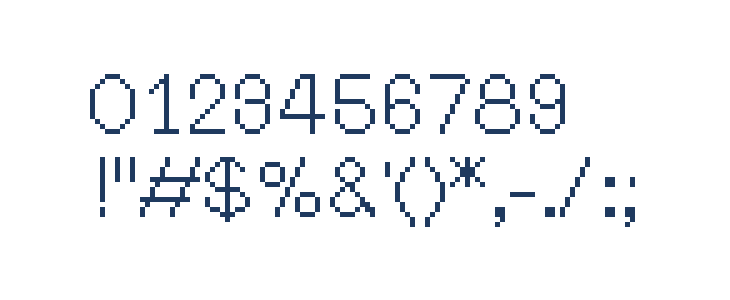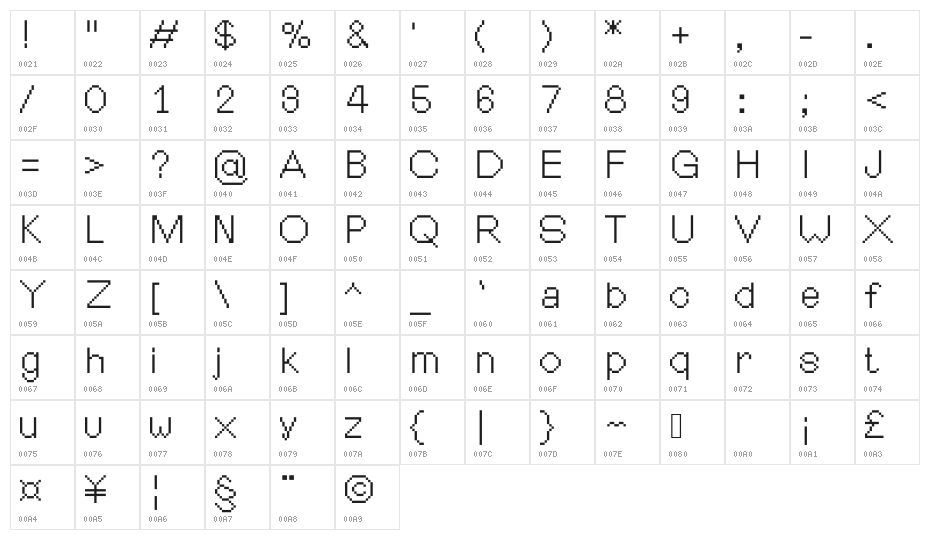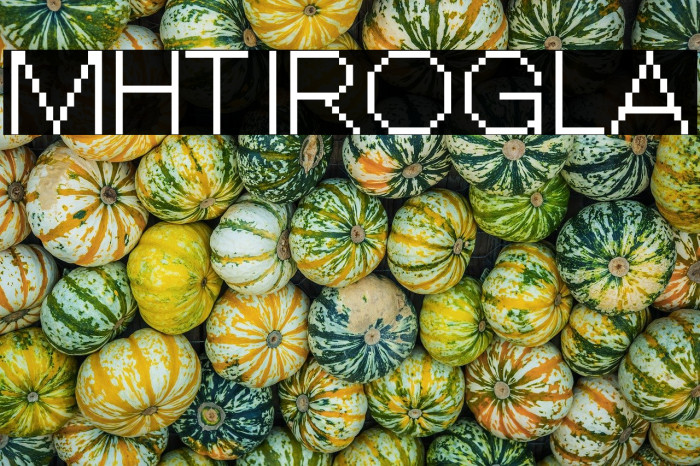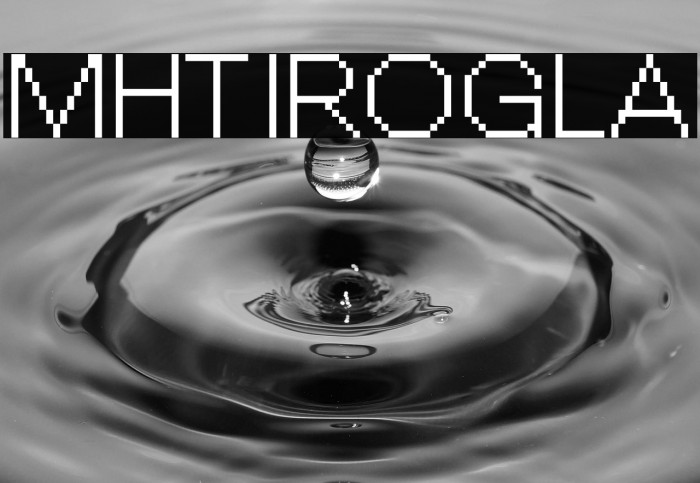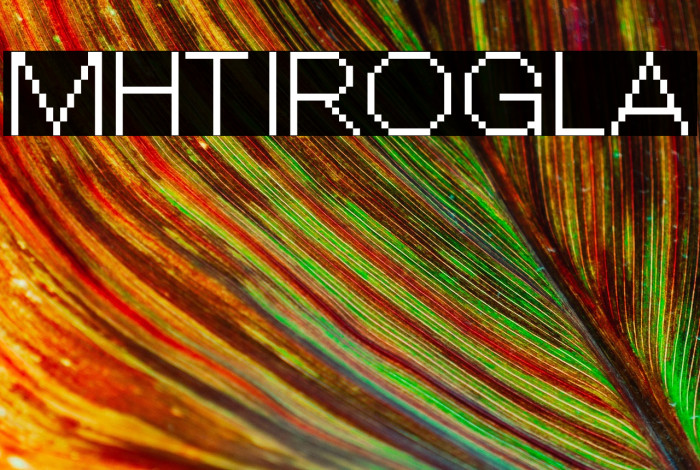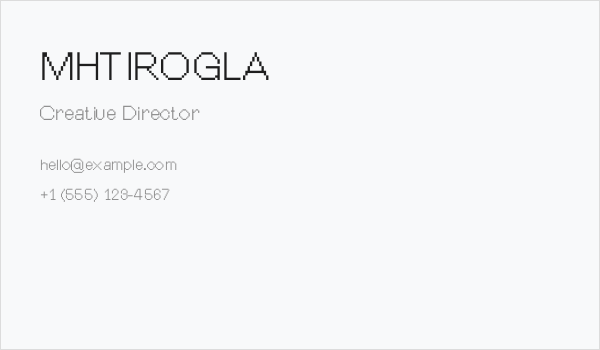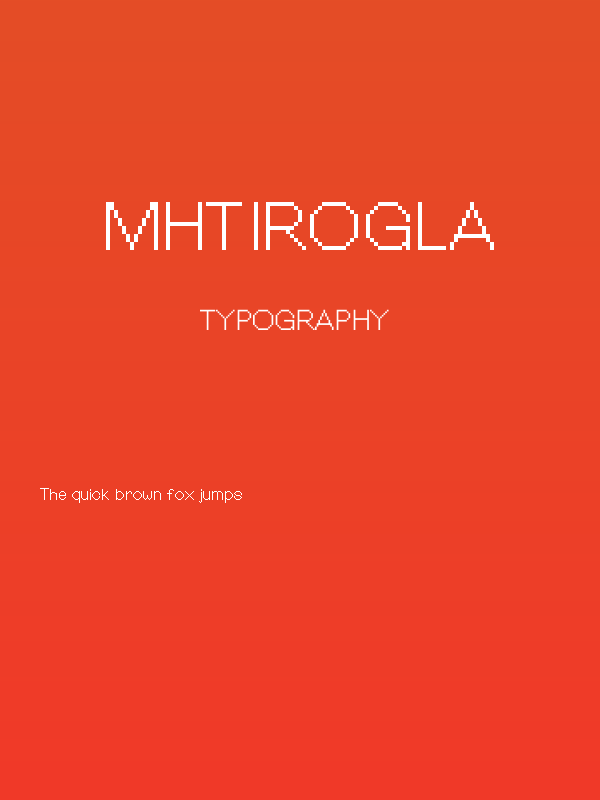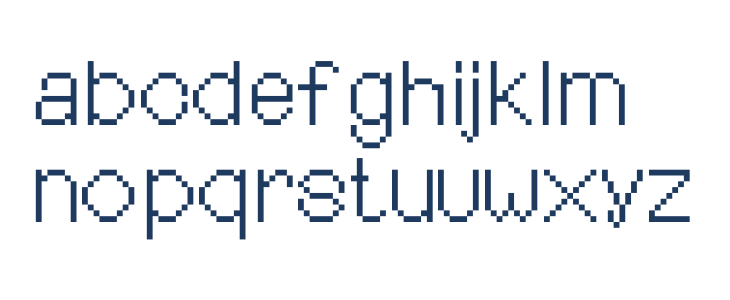
MHTIROGLA Font
MHTIROGLA Description
This font features a pixelated, grid-like structure reminiscent of early digital displays or retro video games. Each character is composed of small squares, giving it a distinctly blocky and geometric appearance. The uppercase and lowercase letters maintain a consistent height, with the lowercase being slightly smaller. Numbers and special characters follow the same pixelated style, ensuring uniformity across all glyphs. The design is straightforward and functional, making it ideal for projects that require a nostalgic or digital aesthetic.
| Overall Style | Retro, Digital |
| Use Case | Logos, Headlines, Digital displays |
| Proposed Projects | Ideal for retro video games, digital art projects, tech-themed designs, and nostalgic branding. |